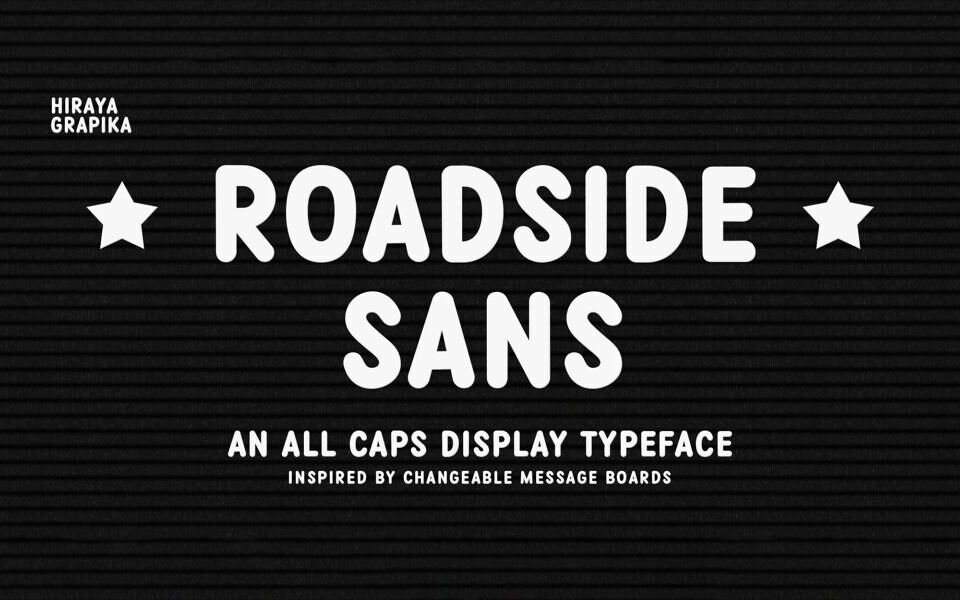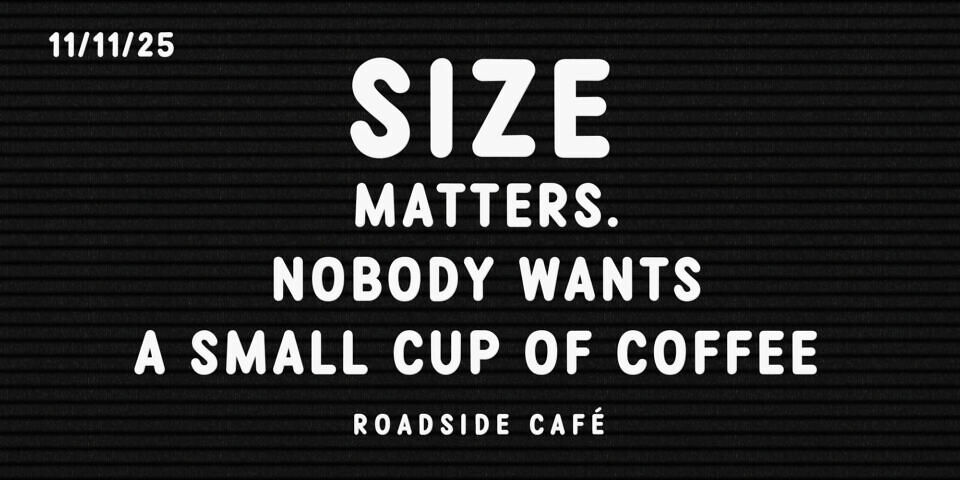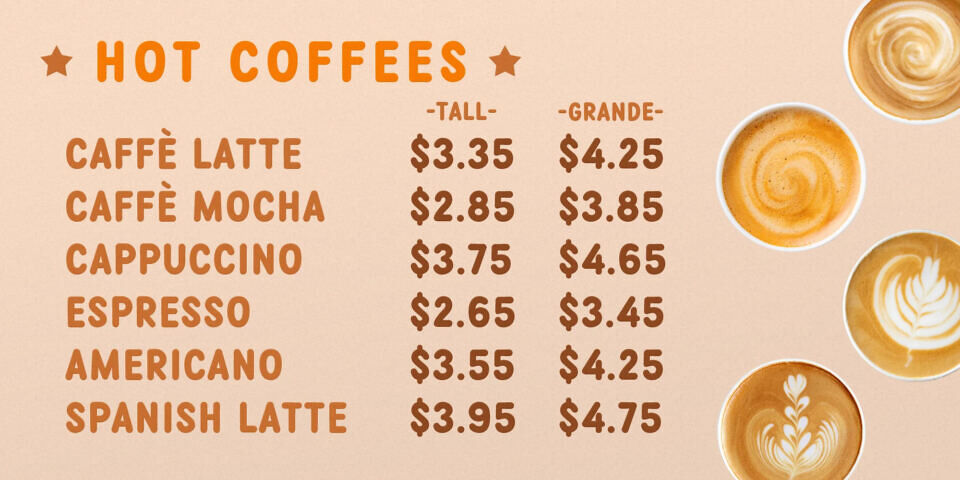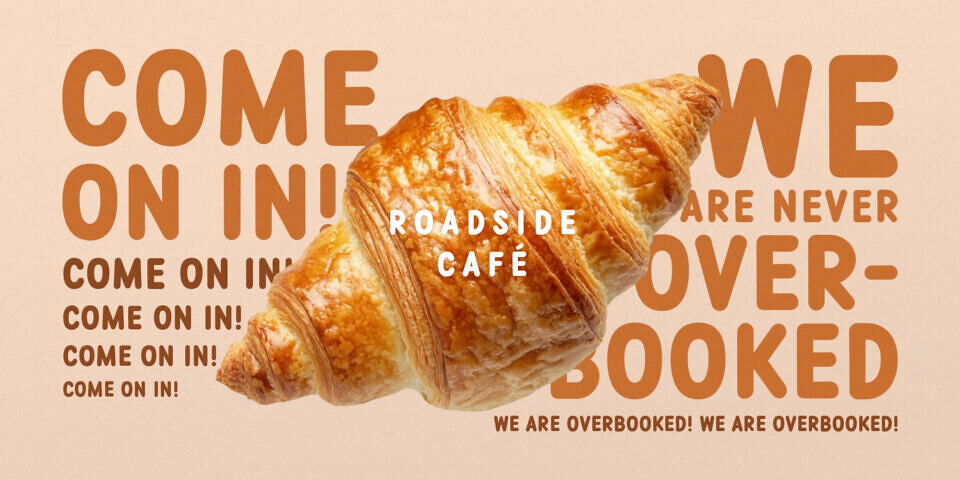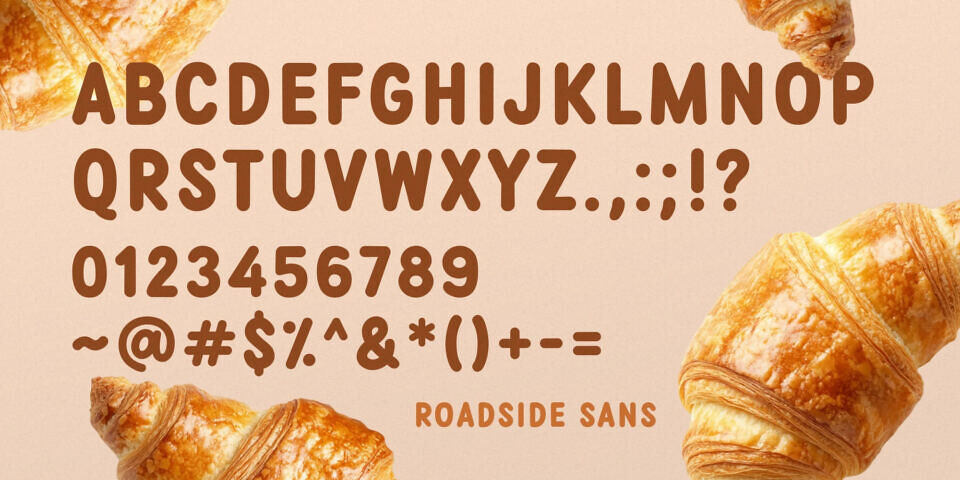
Roadside Sans Font
Roadside Sans is a rounded, semi-condensed, all-caps display typeface inspired by the bold letters of retro changeable sign boards. Rooted in the charm of mid-century roadside culture, it captures the friendly confidence of lettering that announce daily specials, welcome guests, or catch the eyes of passerby.
Its clean geometry, softened edges, and subtle hand-drawn feel bring a balance of utility and warmth, making it as approachable as it is attention-grabbing. Designed for clarity, impact, and character, Roadside Sans shines in logos, packaging, posters, menus, and signage that call for a touch of retro authenticity. Perfect for crafting a nostalgic identity or a modern design with vintage flair.